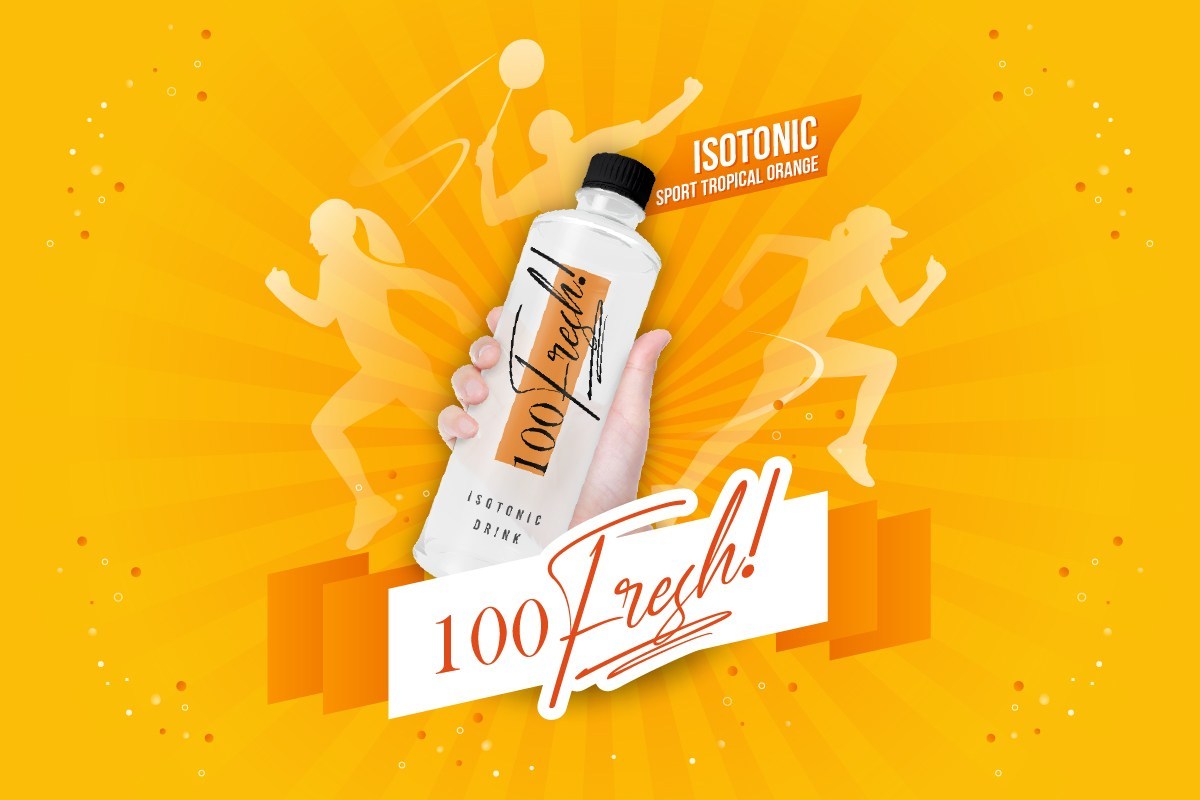
Manchester Park is a lovely Handwritten Font with sophisticated characters , stylish swash and gorgeous alternates. This is perfect for invitation calligraphy, luxury branding, fashion promotions, song tittle, and many more.
This font is crafted carefully in every its single scratch, created to look as close to a natural handwritten script so that it can create the perfect combination on each glyph.
Manchester Park Handwritten Font
Type: Script